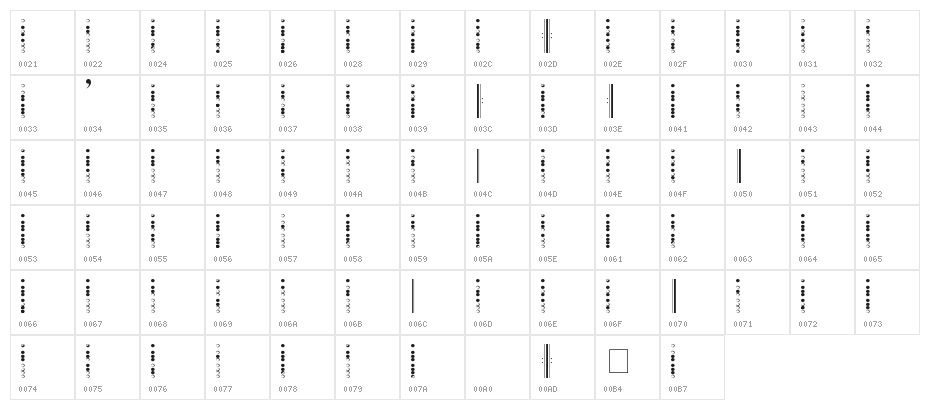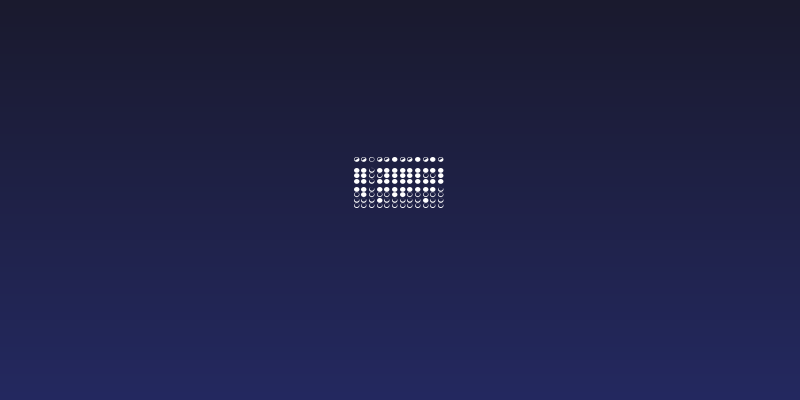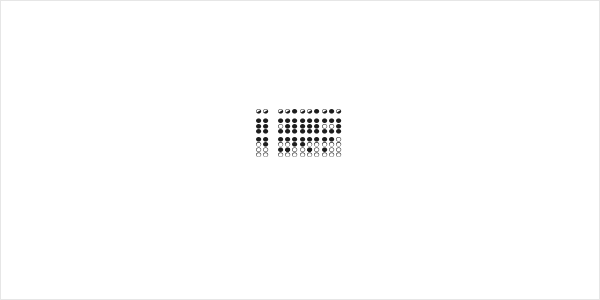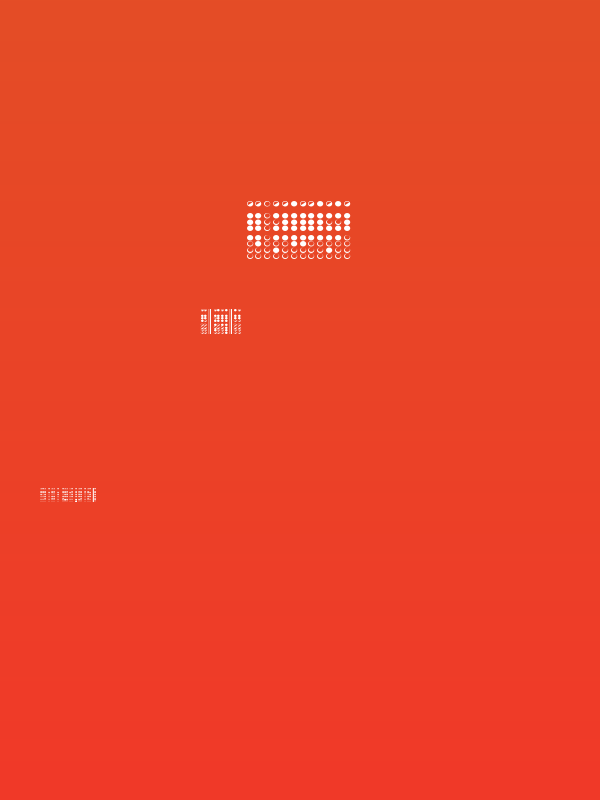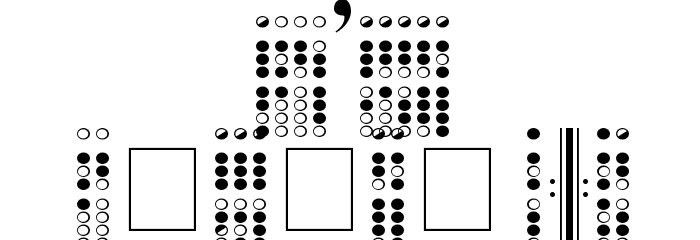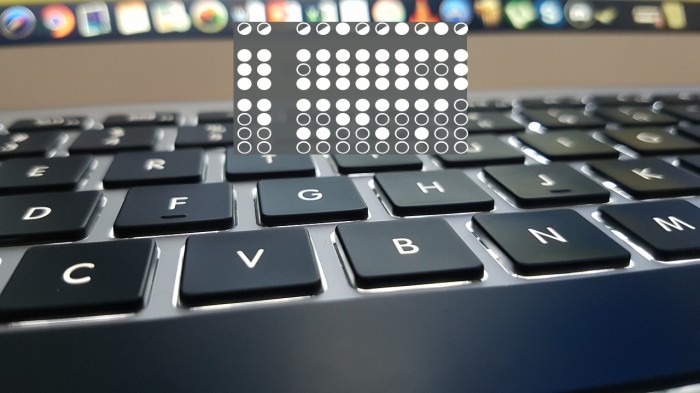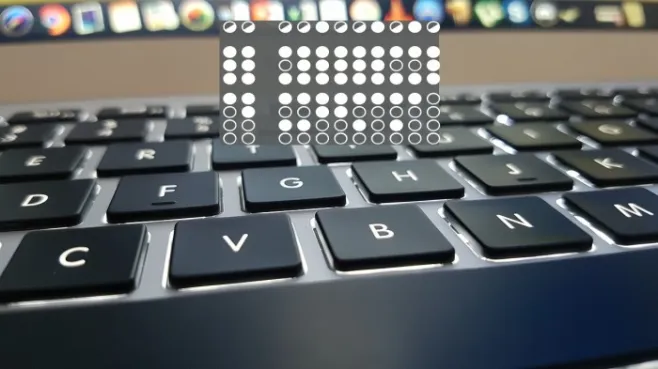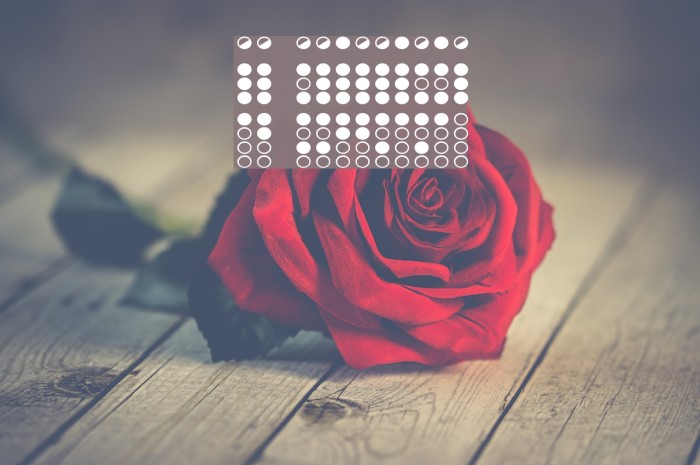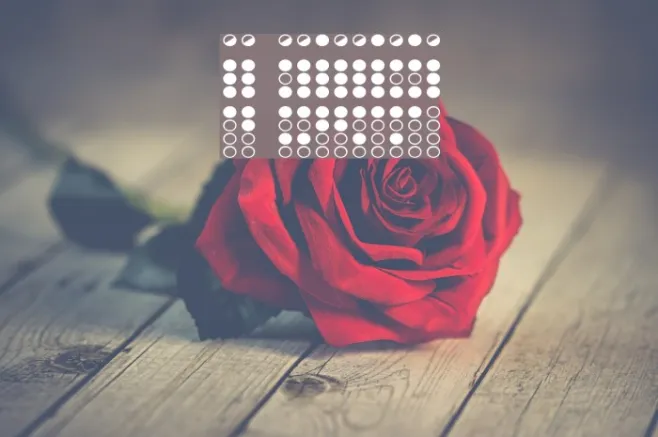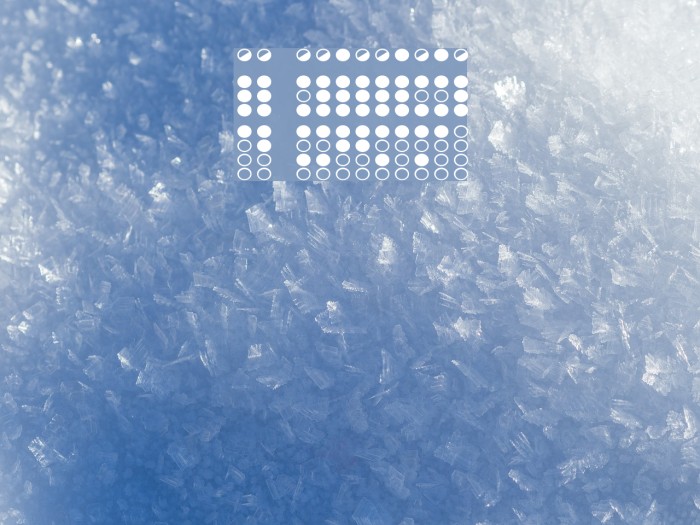
RecorderFont Description
This font is a unique and creative design that uses a series of dots and lines to form each character. The style is reminiscent of a digital or electronic display, with a modern and abstract aesthetic. Each letter and number is constructed using a grid of filled and unfilled circles, creating a pattern that is both visually intriguing and distinct. The special characters are similarly designed, maintaining the cohesive look of the font. This design is not only artistic but also functional, offering a fresh take on traditional typography.
| Use Case | Logos, Headlines, Digital displays |
| Proposed Projects | Ideal for digital art projects, modern branding, tech-related designs, and creative posters. |